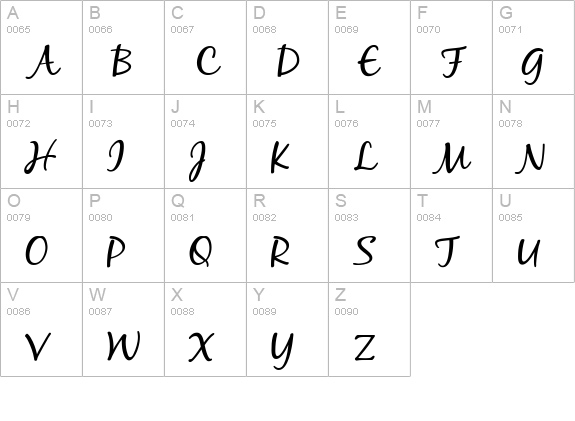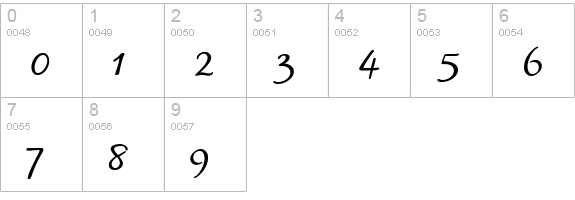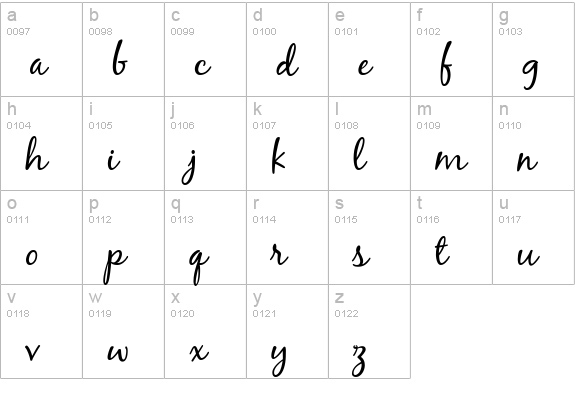
BlackJackRegular Font Details
BlackJackRegular is a sleek and versatile font that combines classic elegance with a modern twist. Its clean lines and timeless appeal make it the perfect choice for a wide range of design projects. Whether you're creating a stylish logo, elegant wedding invitations, or eye-catching posters, BlackJackRegular is sure to make a bold statement. This font features a unique blend of sharp angles and smooth curves, giving it a distinctive and sophisticated look. Its bold and striking appearance commands attention, making it ideal for headlines and titles that need to stand out. Best of all, BlackJackRegular is available for free download at FontsMarket.com. Simply visit the website to get your hands on this stunning font and start adding a touch of class to your designs today. With its stylish design and versatile appeal, BlackJackRegular is a must-have font for any designer looking to make a lasting impression.